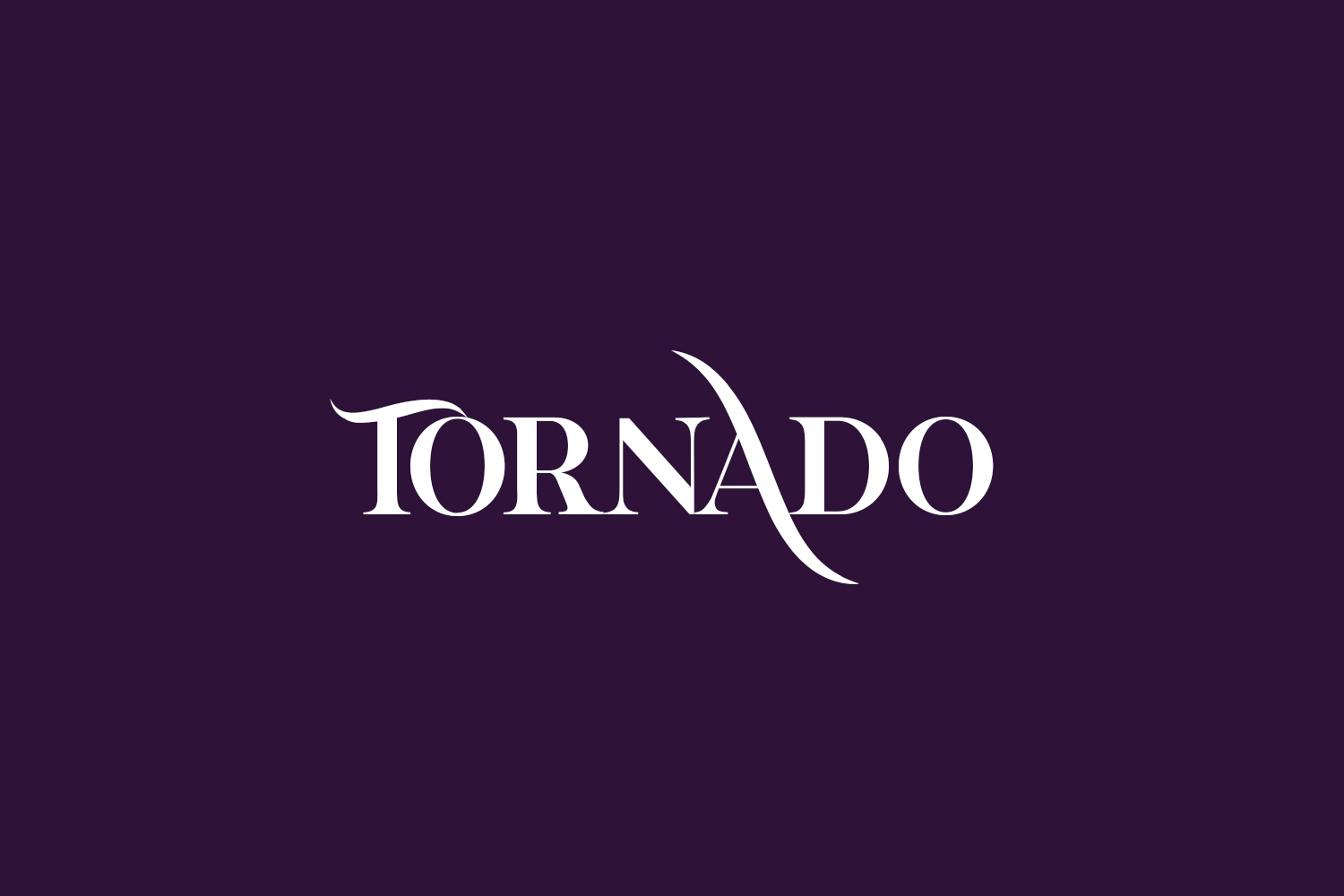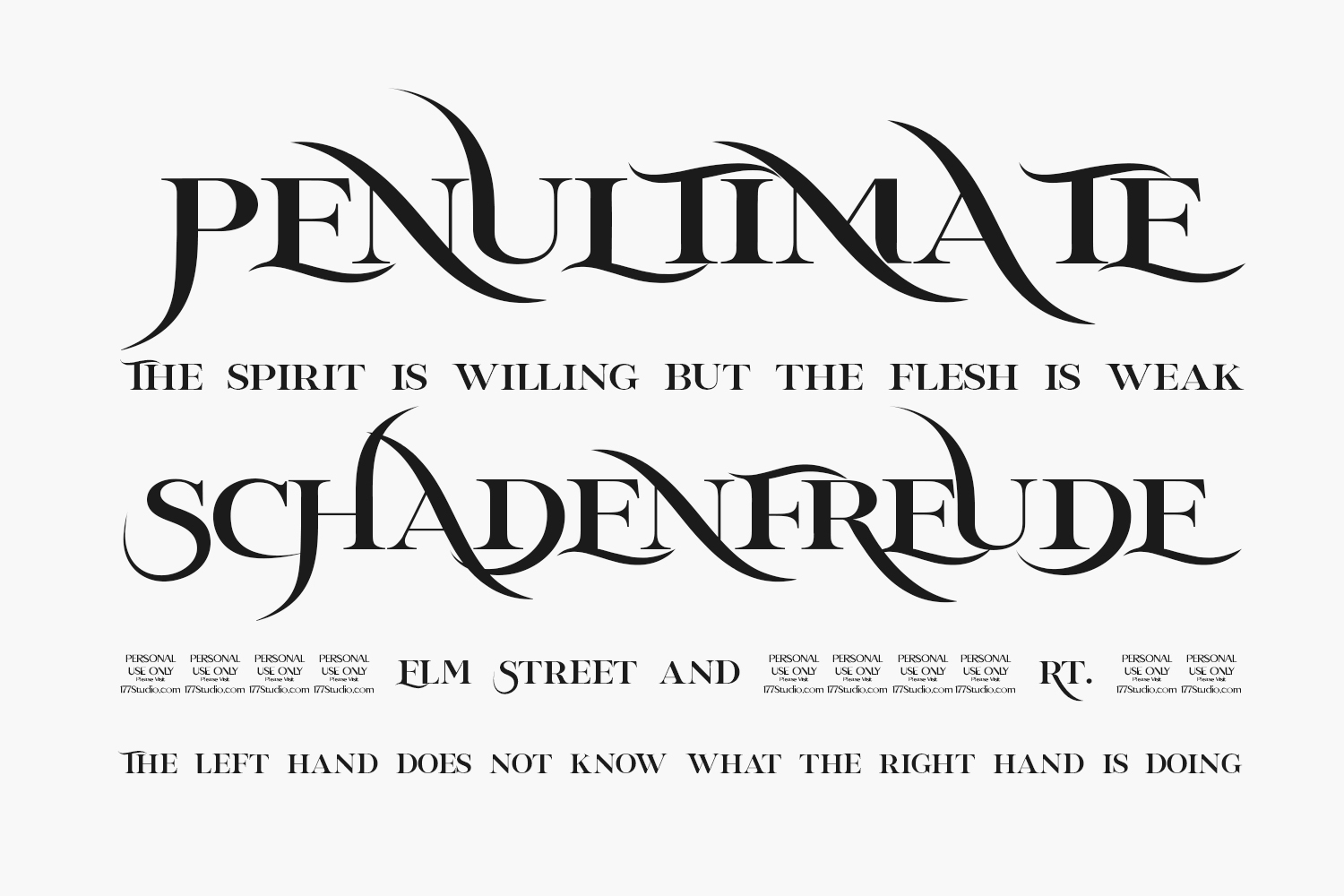
Tornado Free Font Family is a classic style serif typeface that has been modernized with its unique curves and cut-ins making it one of the most memorable caps fonts on the market. This versatile font can be used for Wordmark Logos, Mastheads, Pull Quotes & Monograms showing both feminine and masculine qualities. Tornado Free Font Family is a demo free for personal use only. Please purchase the full version for commercial use.
Designed by 177Studio
Tornado Serif The quick brown fox jumps over the lazy dog
Tornado Italic Serif The quick brown fox jumps over the lazy dog
Tornado Outline The quick brown fox jumps over the lazy dog